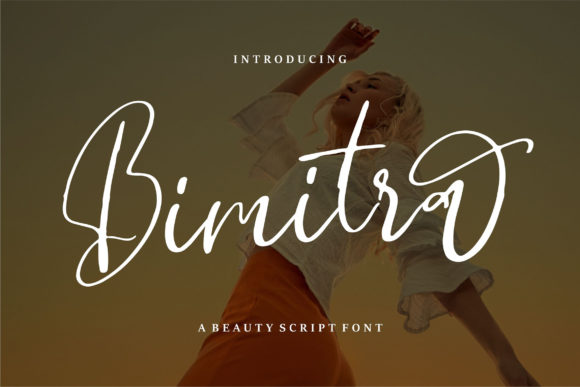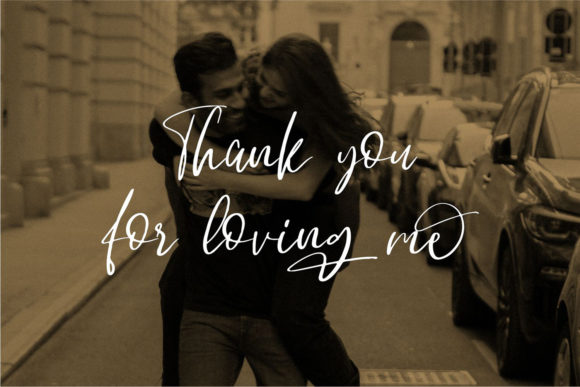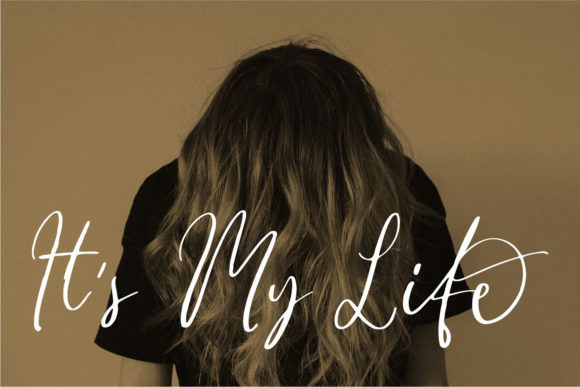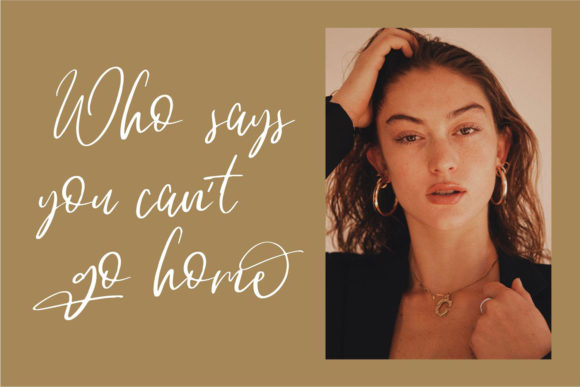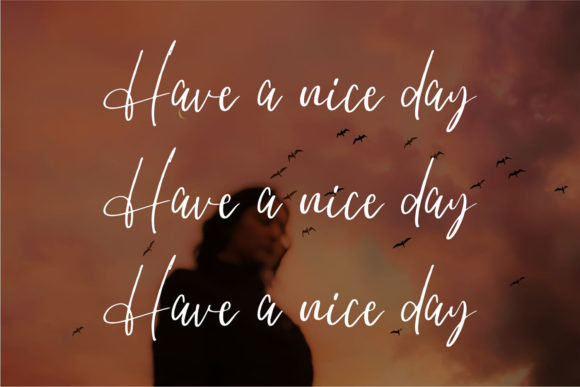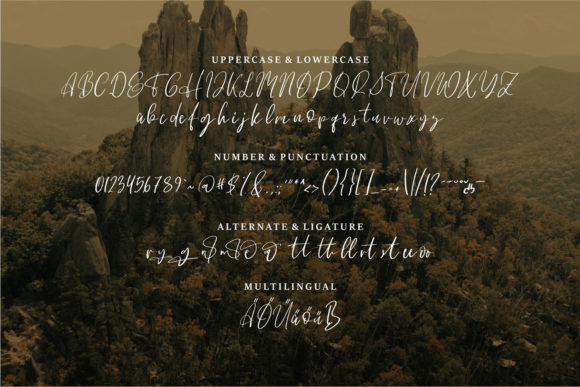
Bimitra Font
About Bimitra Font
Bimitra is a delicate and stylish script font. It has a beautiful and balanced character, that fits well with the large design pool. The shape of each character is very clean and contemporary.